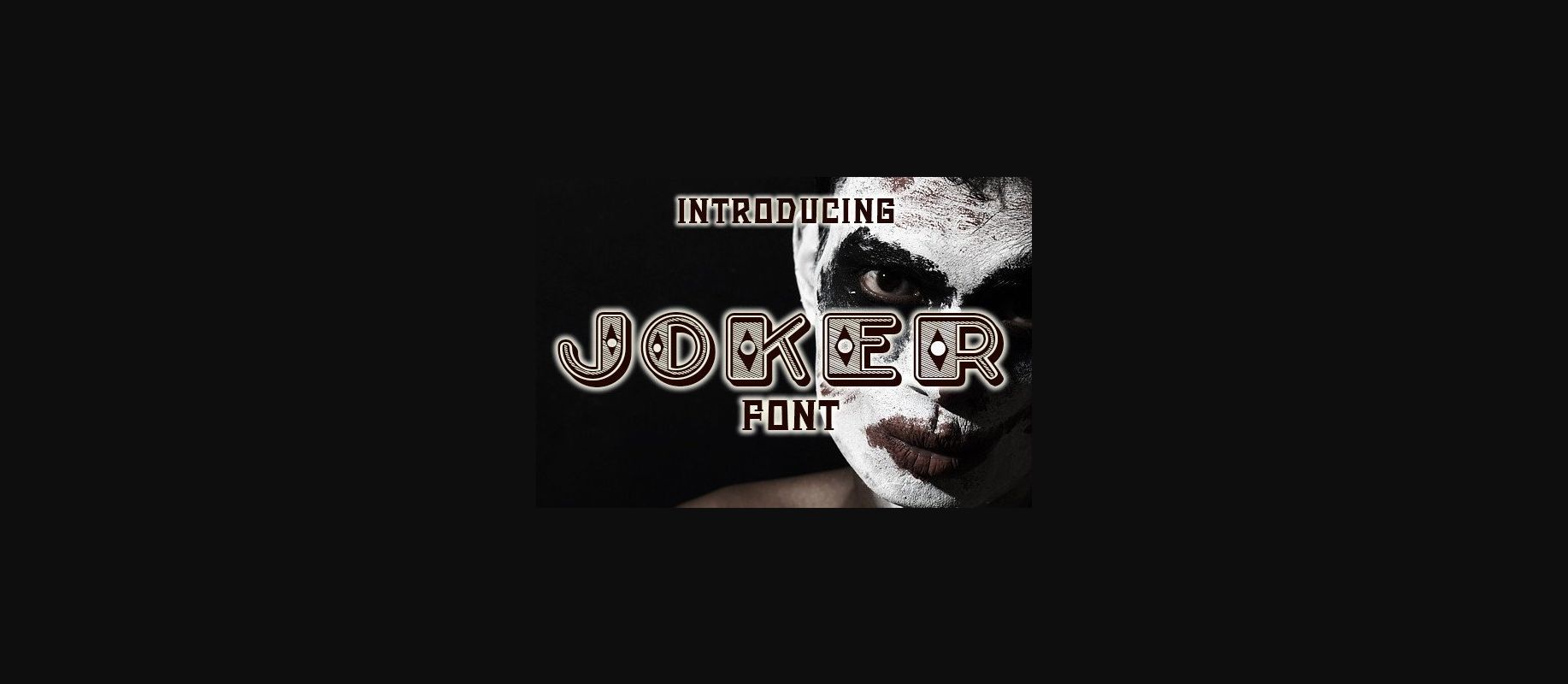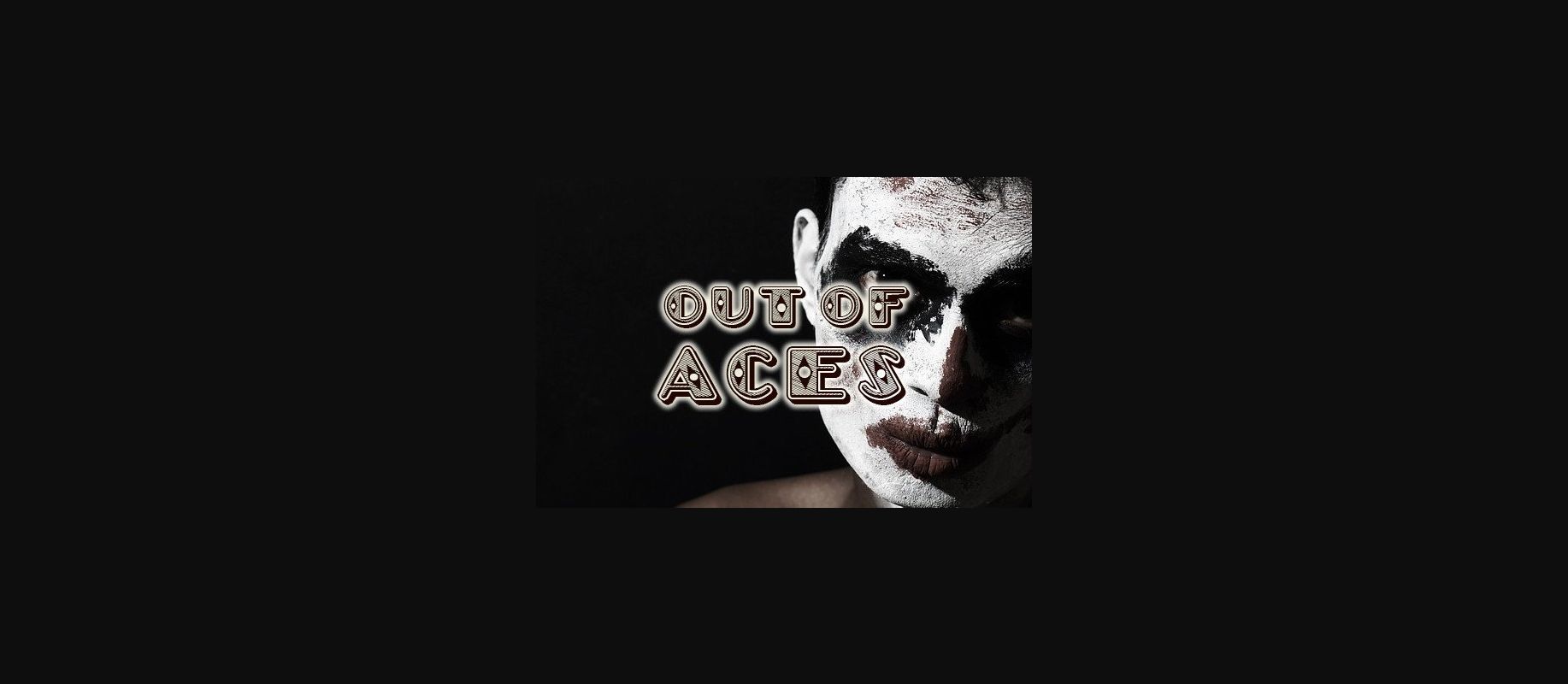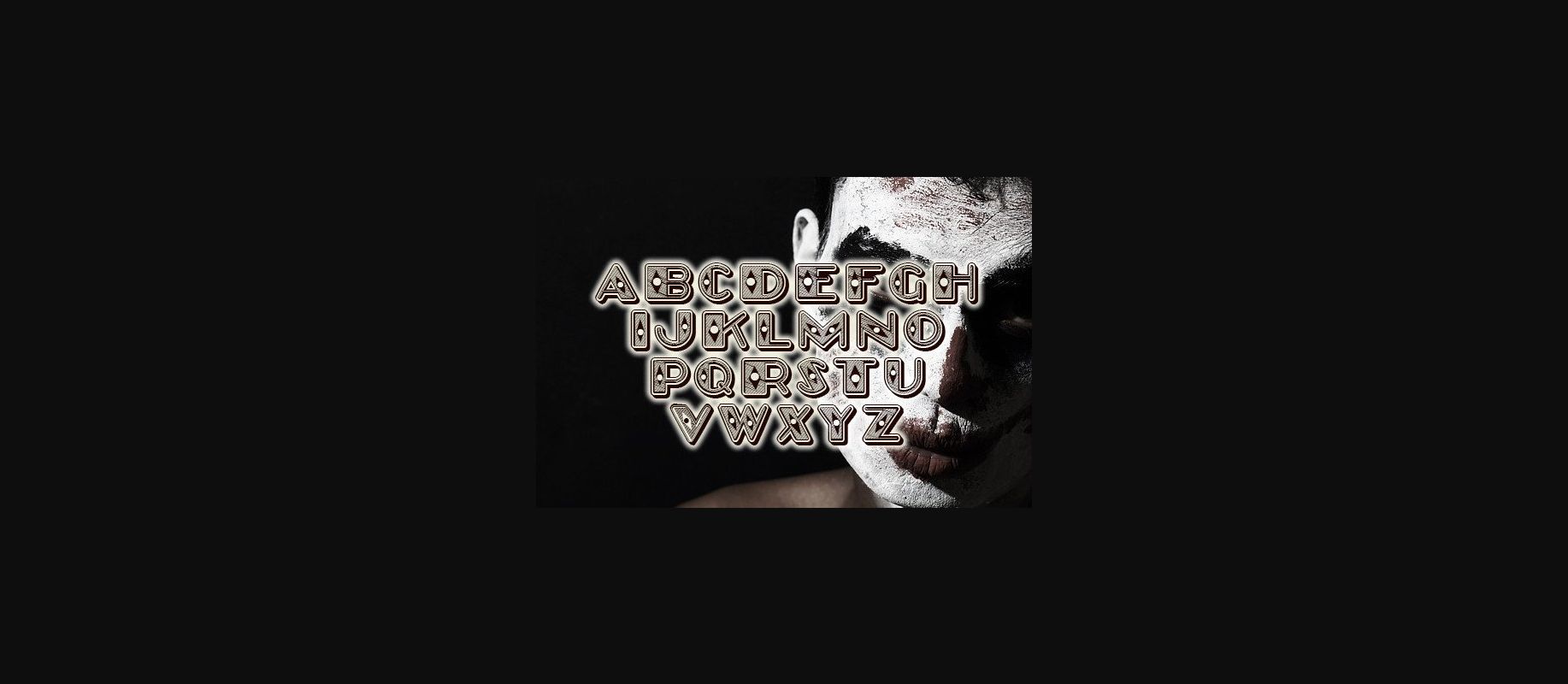
HomeDecorative FontsJoker Font Decorative Fonts Joker Font FacebookXPinterestWhatsApp 1 of 5 ... Joker Font Poster 2... Joker Font Poster 3... Joker Font Poster 4... Joker Font Poster 5... About Joker Font Joker is a transparent decor-typeface. It will look perfect on any shirt, poster, or flyer. DOWNLOAD NOW People also explored Appocalypse Font Lazydog Font Smiling Font Clubing Font Kayla Font Desmont Script Sambrel Gatha Bovely Holy Type Font 308 0 TagsJokerJoker Font Previous articleFunny Cupcake FontNext articleBauble Snowflake Font LEAVE A REPLY Cancel reply Comment: Please enter your comment! Name:* Please enter your name here Email:* You have entered an incorrect email address! Please enter your email address here Website: Save my name, email, and website in this browser for the next time I comment. Personal Use Free Kredit Personal Use Free Read more about this font Boby Personal Use Free Read more about this font Sushi Stroke Personal Use Free Read more about this font Bridgetown Font Personal Use Free Read more about this font BLOG Best Fonts for T-Shirt Design – Top 2025 Picks In 2025, t-shirt design has become more than just fashion—it's a form of self-expression. Whether you're... Modern Sans-Serif Fonts That Brands Love in 2025 Transform Your Website: Elevate Your Typography with 7 Best Web Font Generators Exploring Font Trends